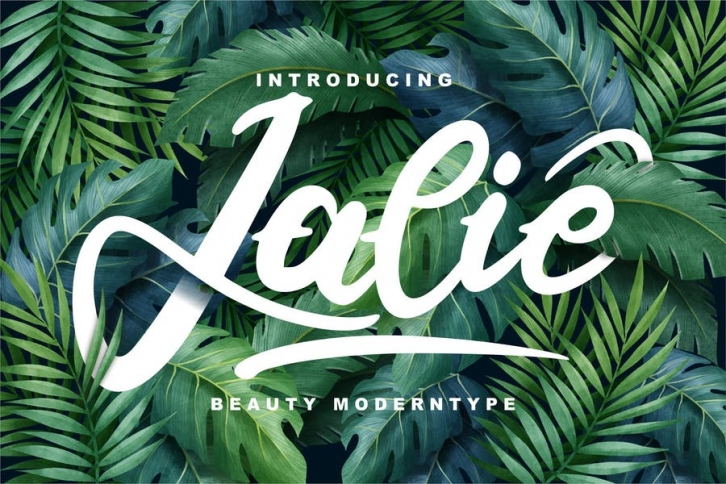
Jalie | Beauty Moderntype with a calligraphy style, So beautiful on invitation like greeting cards, branding materials, business cards, quotes, posters, and more!
• Tons of glyphs
• Alternates and Ligatures